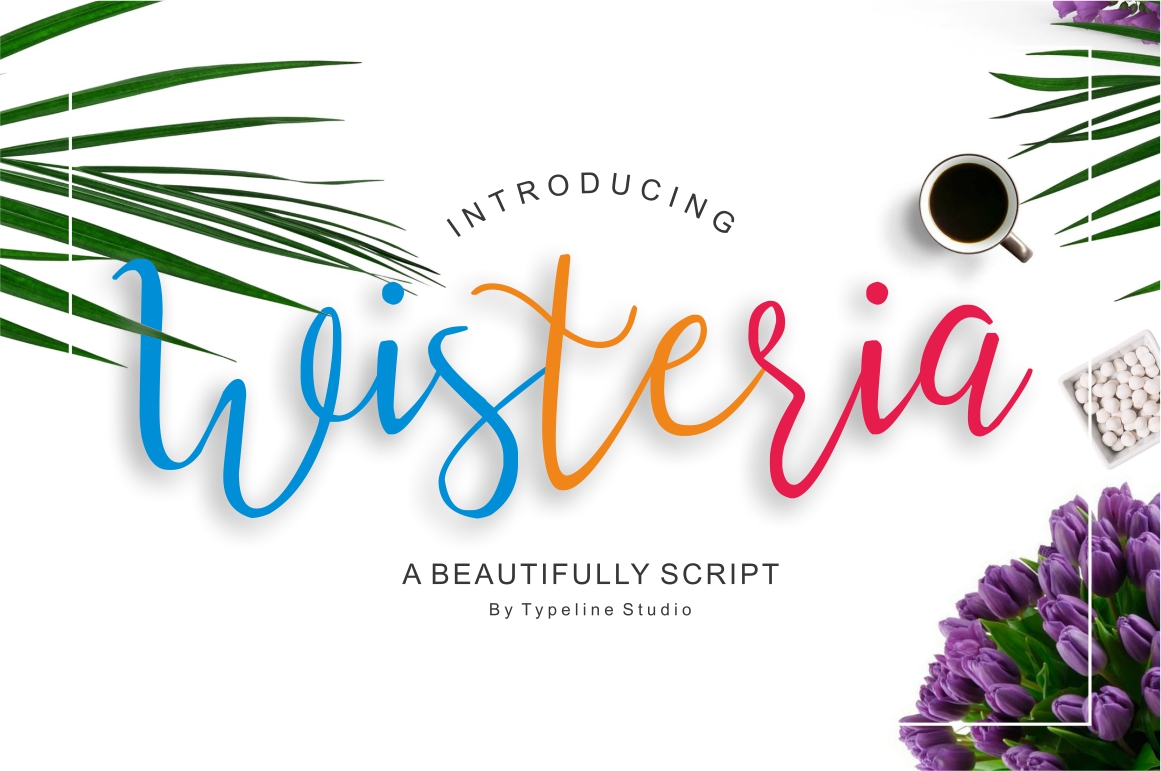
Wisteria Script
Wisteria Script Font
wisteria Script is guaranteed to make your text stand out – perfect for logos, printed quotes, invitations, cards, product packaging,wedding invitation,photography,fashion branding, headers and whatever your imagination holds.INCLUDE